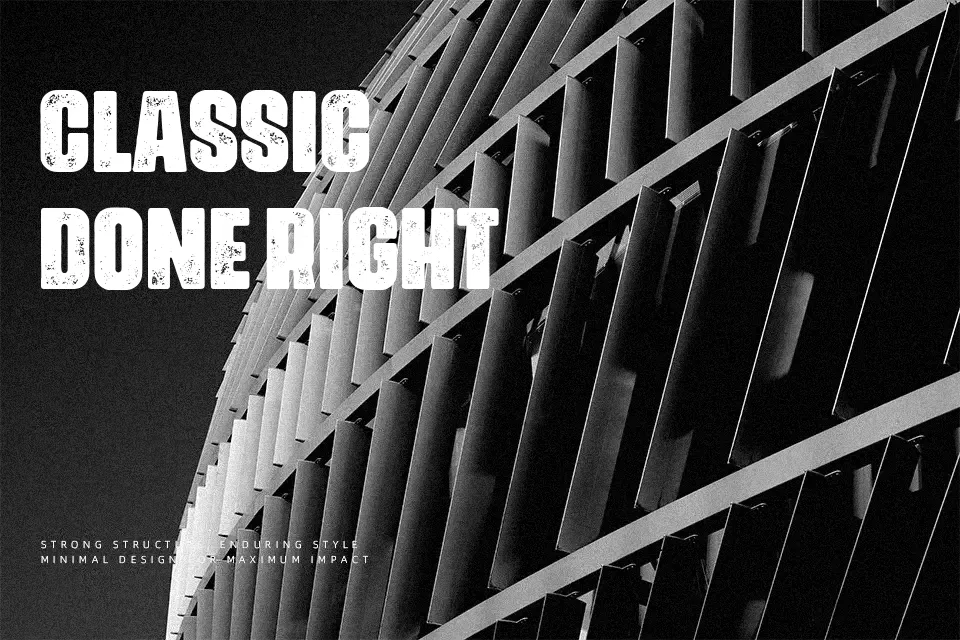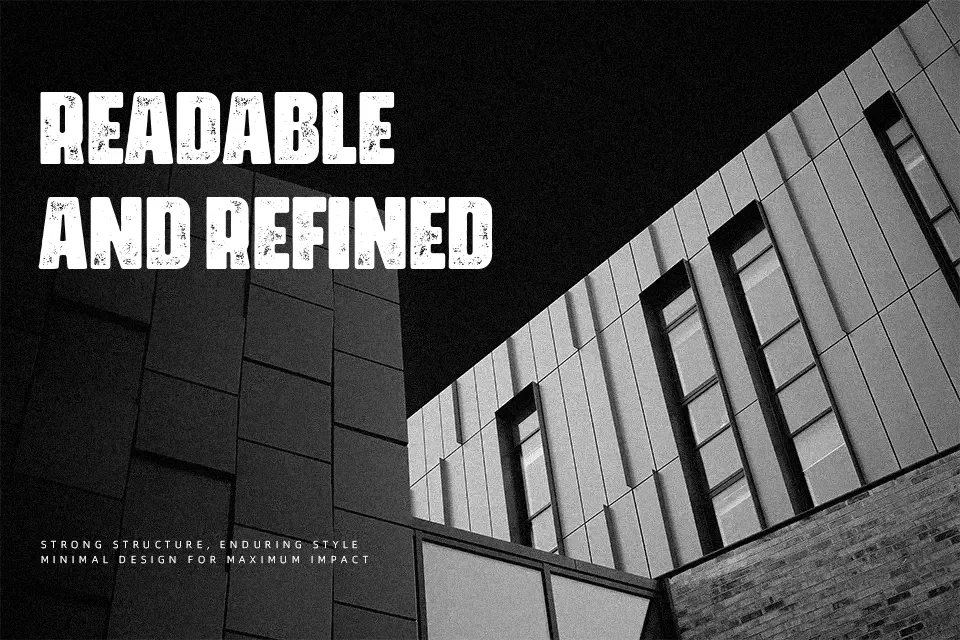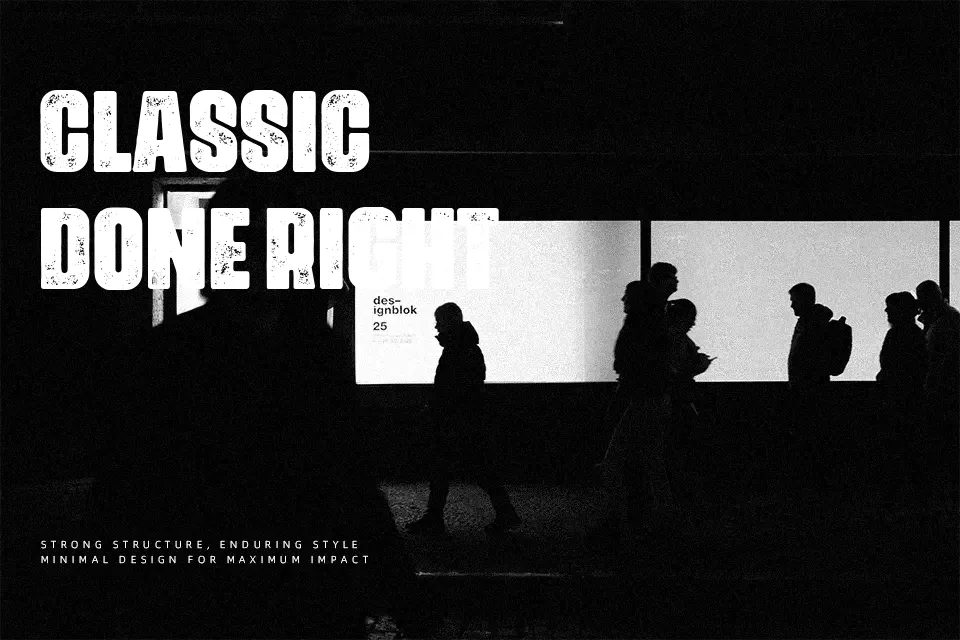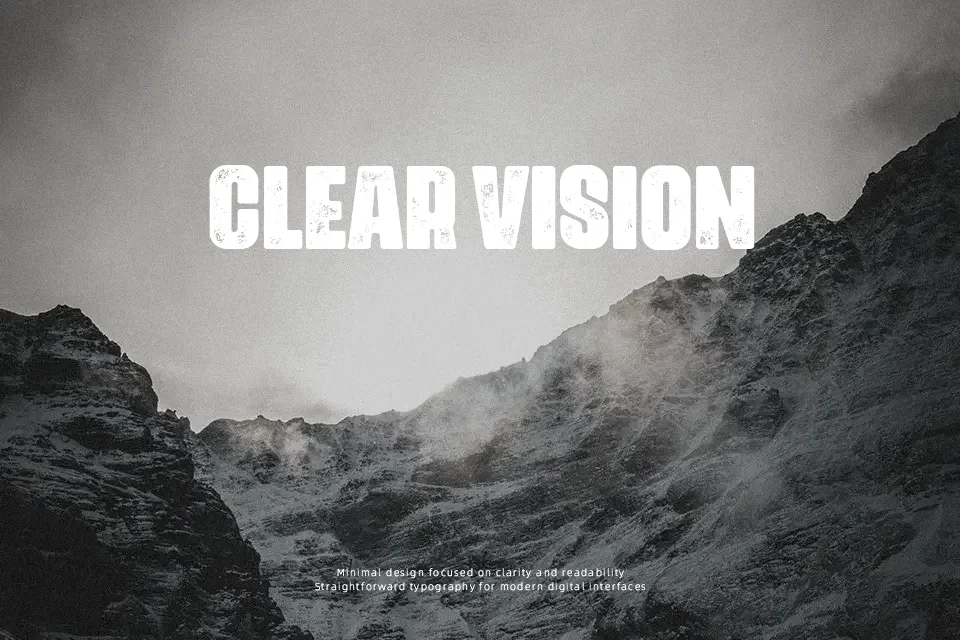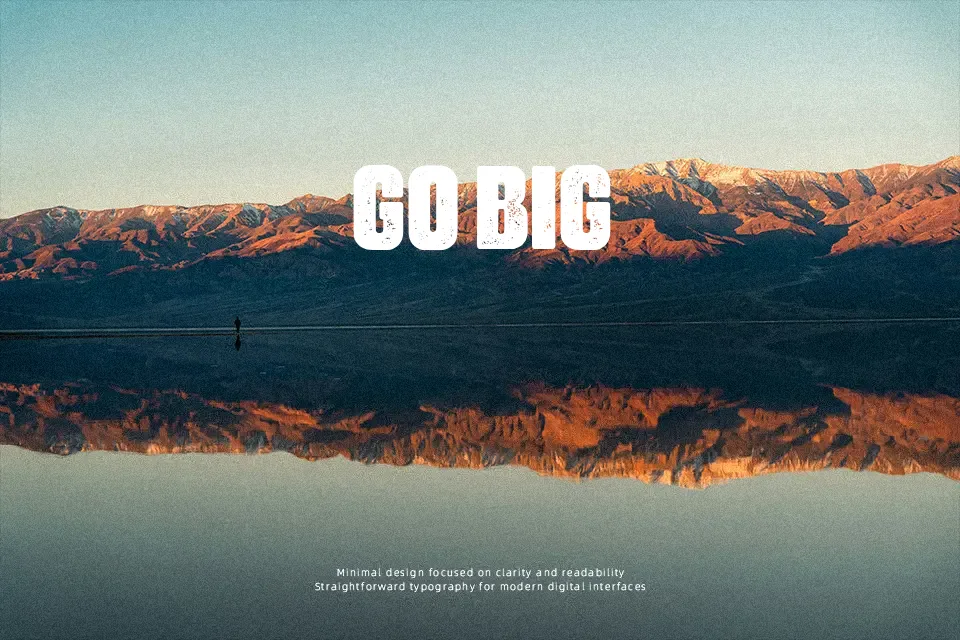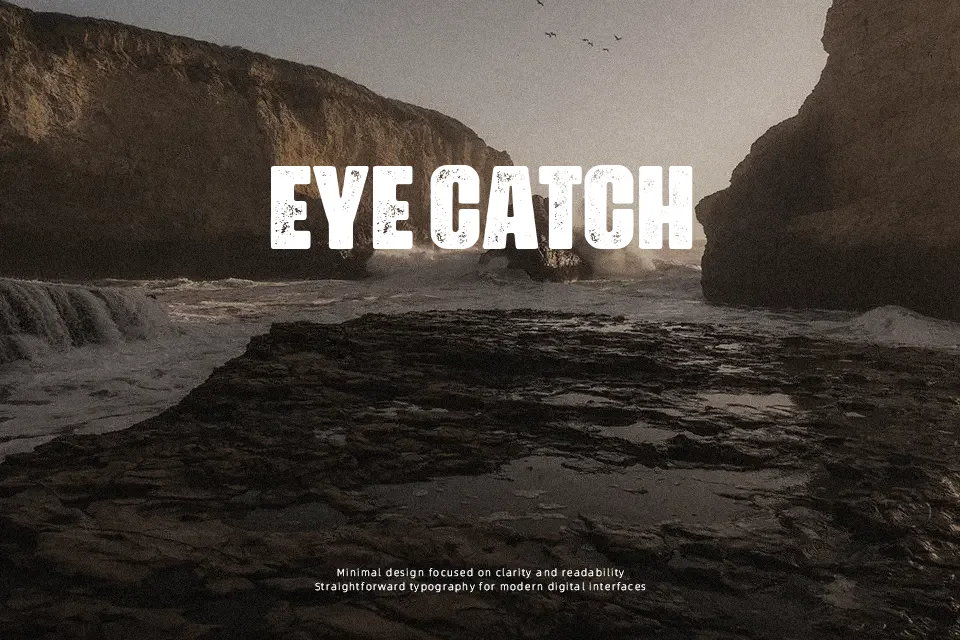
Urzeit Font
Urzeit Font features heavily distressed display letterforms built upon sturdy, rounded sans serif skeletons. Consistent medium-thick strokes incorporate eroded cutouts, irregular contours, and worn interior textures that simulate weathered stamp impressions. Proportions remain solid and upright across the uppercase alphabet, creating a rhythmic cadence when set with moderate tracking. The spacing provides adequate clearance between adjacent characters, preventing the irregular contours from clashing in title layouts. This decorative texture holds immediate visual presence in bold promotional signage, yet dense erosion quickly obscures legibility in smaller captions and body copy.
Best For: craft beverage packaging,outdoor apparel graphics,music festival posters,adventure game titles
Not Ideal For: continuous body text,mobile interface labels,formal correspondence,legal documents